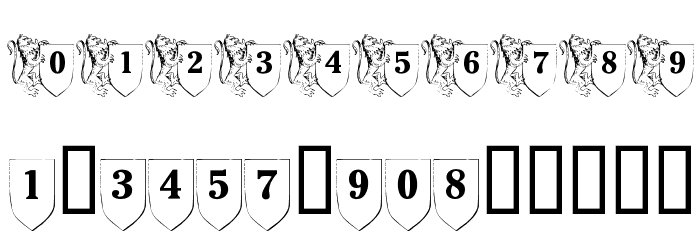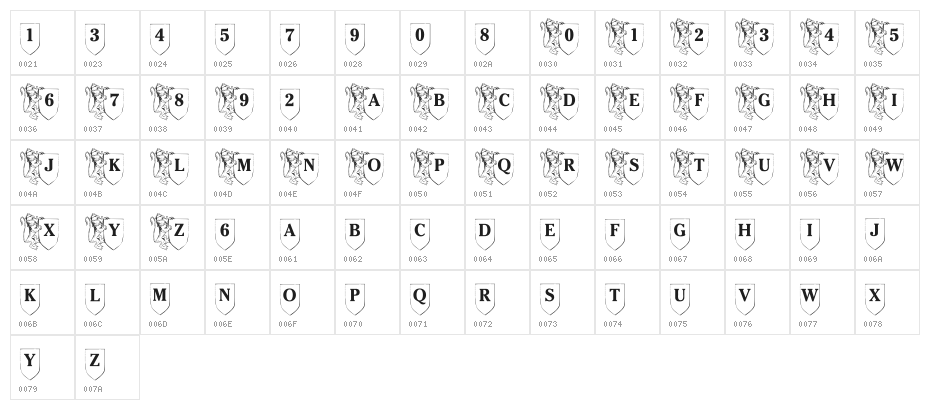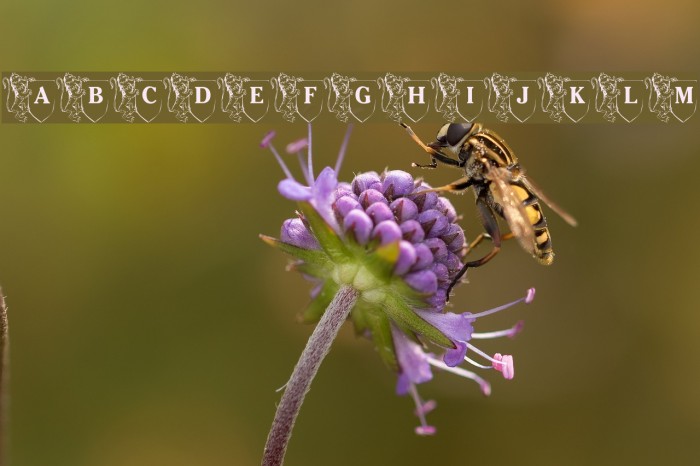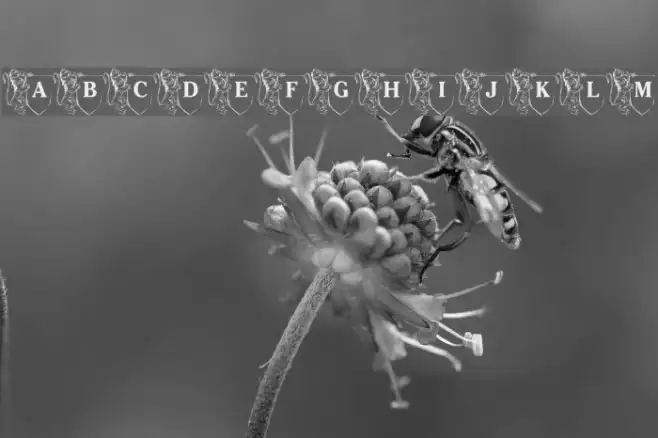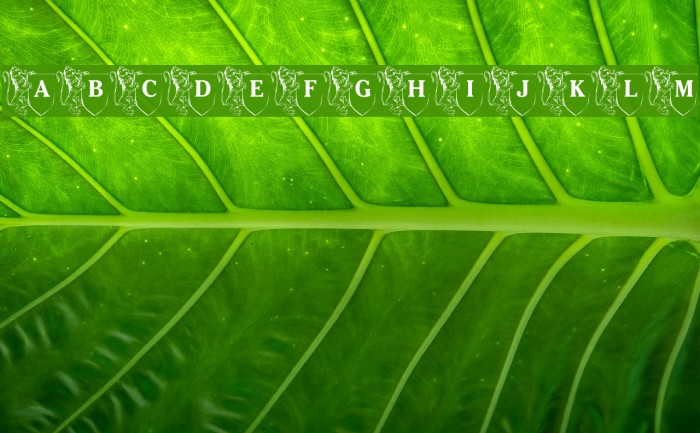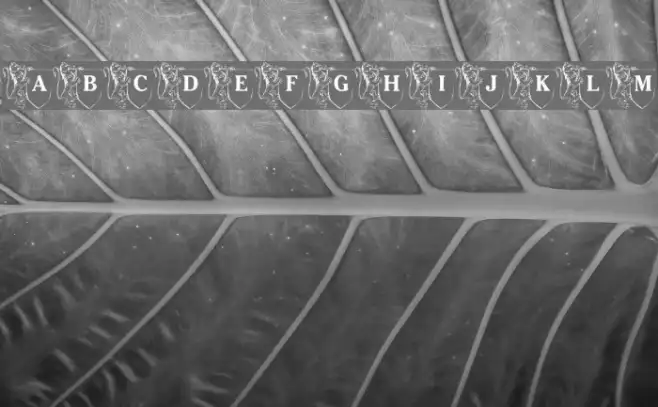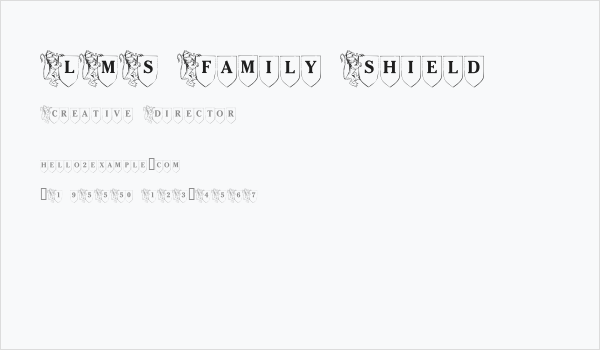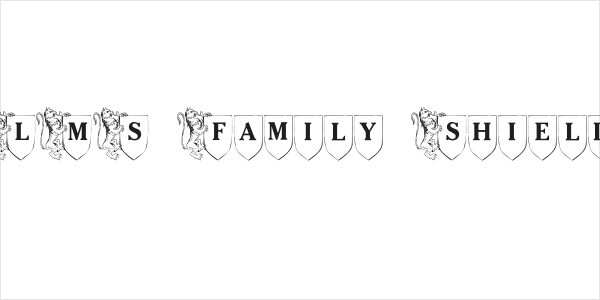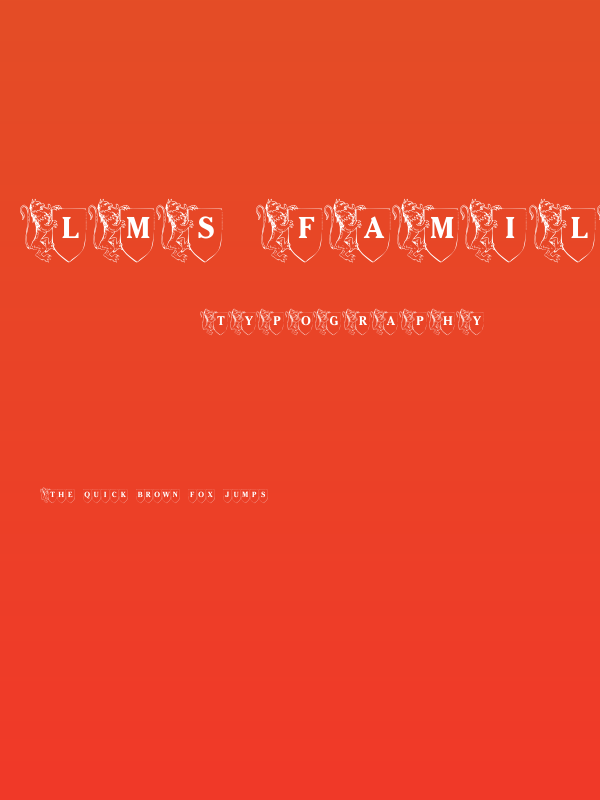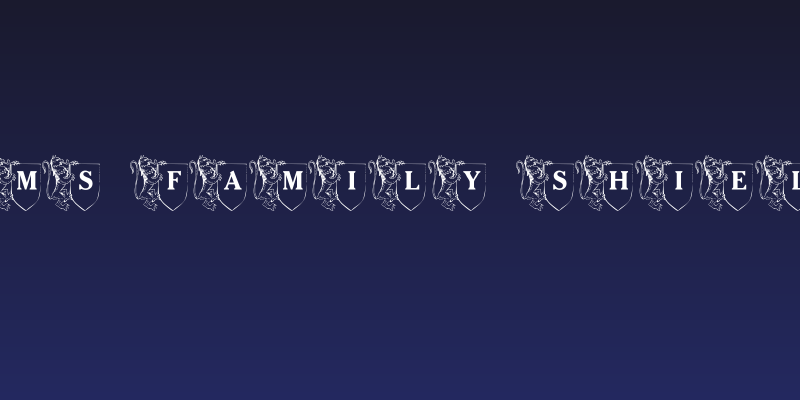
LMS Family Shield Font
LMS Family Shield Description
This font features a unique design where each character is enclosed within a shield-like emblem, giving it a heraldic and medieval appearance. The uppercase letters are bold and prominently displayed, each set against a detailed shield backdrop. The numbers and special characters follow the same design, maintaining consistency throughout. The font's style is reminiscent of family crests or coat of arms, making it ideal for projects that require a touch of historical or noble flair. The intricate detailing on the shields adds an extra layer of sophistication, making it suitable for decorative purposes.
| Use Case | Logos, Decorative text, Themed events |
| Proposed Projects | Ideal for creating family crests, historical documents, themed invitations, or any project requiring a medieval or noble aesthetic. |